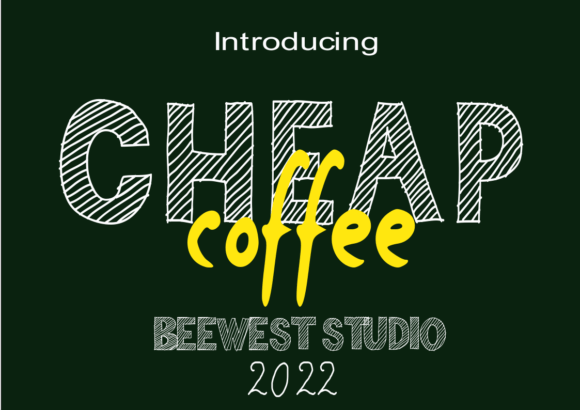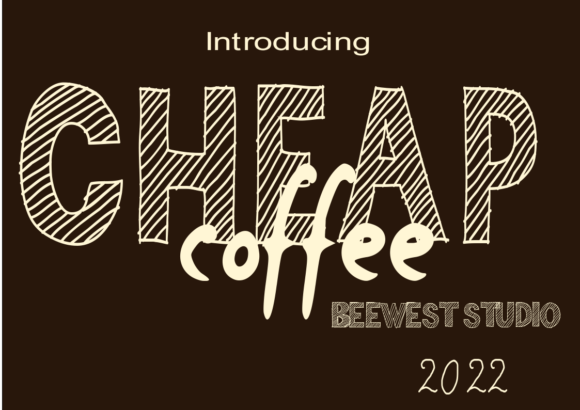
Unlock the Flavors of Creativity with Cheap Coffee Font
There’s nothing quite like the thrill of a late-night design session, fueled by a fresh cup of coffee and a dash of creative inspiration. As you pour over lines of code, your mind starts racing with ideas, and the world feels like your canvas. It’s in these moments that the right font can make all the difference – and that’s where Cheap Coffee Font comes in.
This retro-inspired font is a game-changer for designers, injecting a wild energy and great taste into any project. From coffee shop boards to poster designs, Cheap Coffee Font is the perfect companion for bringing your ideas to life. With its unique blend of vintage charm and modern flair, it’s no wonder this font has become a favorite among creatives. Whether you’re a seasoned designer or just starting out, Cheap Coffee Font is a valuable addition to your toolkit.
Cheap Coffee Font Key Features
- Unique Characteristics: Cheap Coffee Font features a distinctive, hand-drawn aesthetic with subtle texture and imperfections, adding a touch of personality to digital designs.
Review of “Cheap Coffee Font”
Overall, I think “Cheap Coffee Font” is a decent font that can be useful for certain projects. There are some aspects where it truly shines, but also some limitations that should be considered.
- Fun and quirky design: The font’s aesthetic is certainly unique and can add a playful touch to any design.
- Wide range of languages supported: “Cheap Coffee Font” covers a wide range of languages, making it a versatile option for designers who work with multilingual clients.
- Not ideal for formal or professional designs: The font’s playful nature makes it better suited for casual or creative projects, rather than formal or professional ones.
- Limited font sizes: The font may not be the most readable at smaller sizes, which can be a concern for designers who need to use it in smaller text areas.
- Not as polished as other fonts: While the font has a unique charm, it may not be as refined or polished as other fonts in its category.
Overall, I think “Cheap Coffee Font” is a solid choice for designers who are looking for a fun and quirky font for their projects. However, it may not be the best option for more formal or professional designs.
Getting the Most Out of “Cheap Coffee Font”
For best results, pair the “Cheap Coffee Font” with bold or italic text to create a visually appealing contrast.
Use the font for headings or titles to draw attention and create a sense of hierarchy in your design.
The “Cheap Coffee Font” is perfect for:
- Coffee shop menus and branding.
- Food and beverage packaging labels.
- Blog posts and social media graphics.